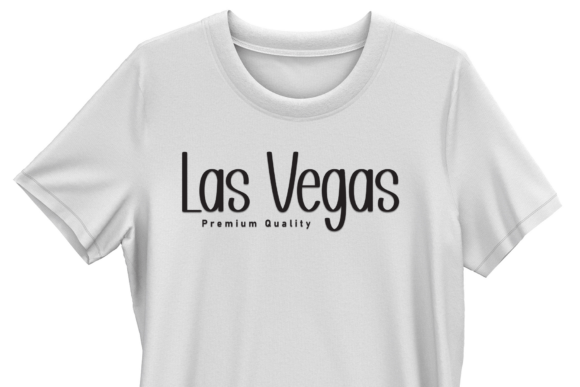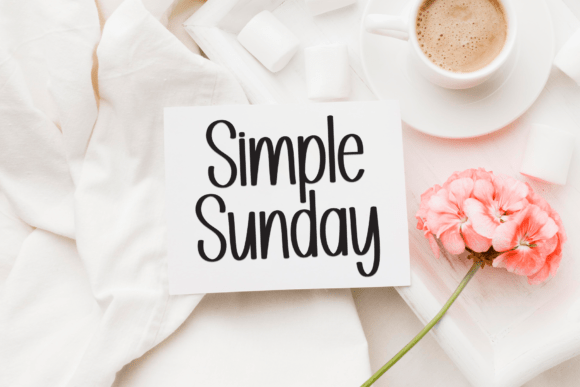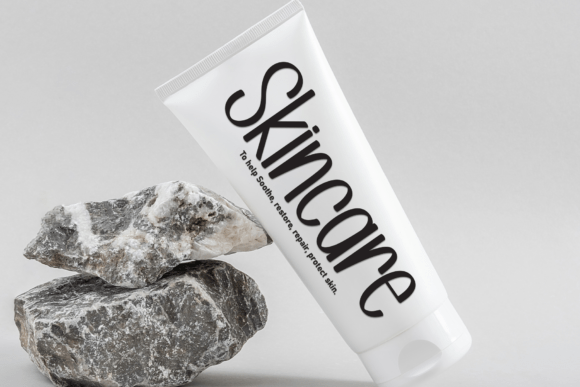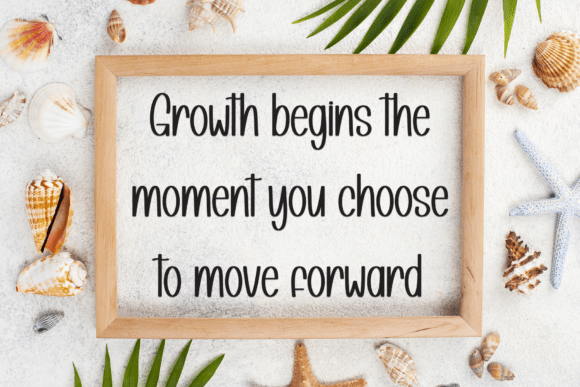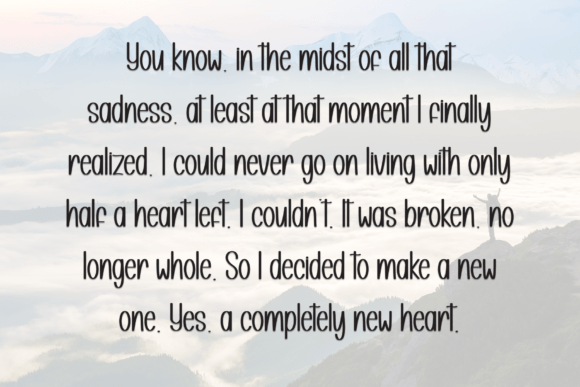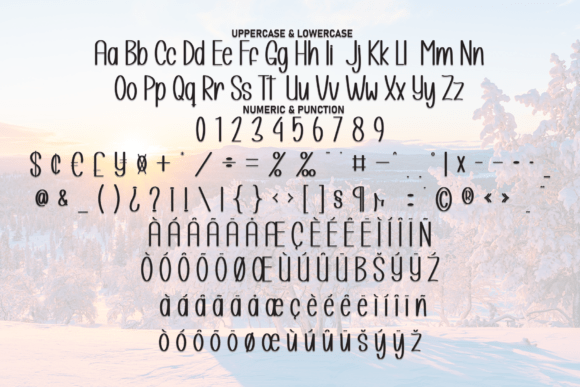
Introducing December Wonderful Font: The Epitome of Captivating Charisma
Are you tired of using the same old fonts for your artistic endeavors? Look no further! Our December Wonderful Font is here to revolutionize the way you approach design. This captivatingly snug, artisan-crafted typeface is the perfect addition to your font collection, boasting an enthralling appeal that will leave your audience mesmerized.
The Story Behind December Wonderful Font
Every line of this enchanting font is meticulously created to pour life and liveliness into your artistic endeavors. Our team of skilled designers has poured their hearts and souls into crafting a unique style that exudes happiness and appeal. The result is a font that is not only visually stunning but also evokes a sense of warmth and personality.
The Perfect Font for Wedding Invites and Personalized Cards
December Wonderful Font is perfectly apt for captivating wedding invites or personalized cards. The font’s playful charm and merriment make it an ideal choice for special occasions, adding a touch of whimsy and romance to your designs. Whether you’re a designer or a crafter, this font is sure to bring your artistic masterpieces to life.
What Sets December Wonderful Font Apart
So, what makes December Wonderful Font so unique? Here are a few features that set it apart from other fonts:
- Distinct Handwriting Style: Our font boasts a distinct handwriting style that interweaves a wonderful interplay of playful charm and merriment.
- Captivating Charisma: Every line of this font is designed to captivate your audience, drawing them in with its enthralling appeal.
- Artisan-Crafted: Our team of skilled designers has carefully crafted every detail of this font, ensuring that it is both visually stunning and functional.
How to Use December Wonderful Font in Your Designs
Using December Wonderful Font in your designs is easy! Here are a few tips to get you started:
- Pair it with Other Fonts: Experiment with pairing December Wonderful Font with other fonts to create a unique and visually appealing design.
- Use it for Headings and Titles: The font’s playful charm makes it perfect for headings and titles, adding a touch of whimsy to your designs.
- Experiment with Colors: Try out different colors to see how they interact with the font, adding an extra layer of depth to your designs.
Why Designers and Crafters Love December Wonderful Font
December Wonderful Font has quickly become a favorite among designers and crafters, and for good reason. Here are a few reasons why:
- Easy to Read: The font’s clear and concise design makes it easy to read, even at small sizes.
- Versatile: December Wonderful Font is perfect for a wide range of design projects, from wedding invites to personalized cards.
- Unique: The font’s distinct handwriting style sets it apart from other fonts, making it a great choice for designers and crafters looking to add a touch of personality to their designs.
In conclusion, December Wonderful Font is a game-changer for designers and crafters. Its captivating charisma, distinct handwriting style, and versatility make it the perfect addition to any font collection. Whether you’re looking to add a touch of whimsy to your designs or simply want to try out a new font, December Wonderful Font is sure to impress. So why wait? Download December Wonderful Font today and experience the enthralling appeal for yourself!